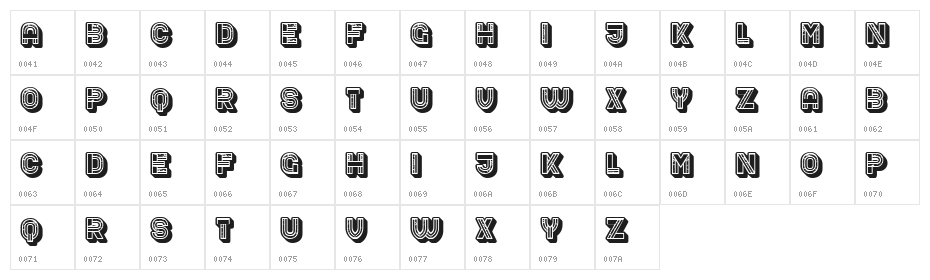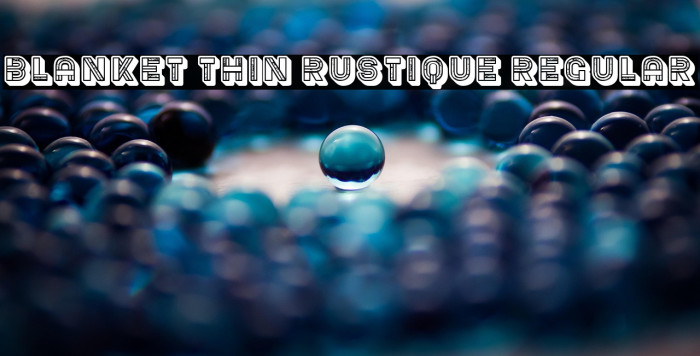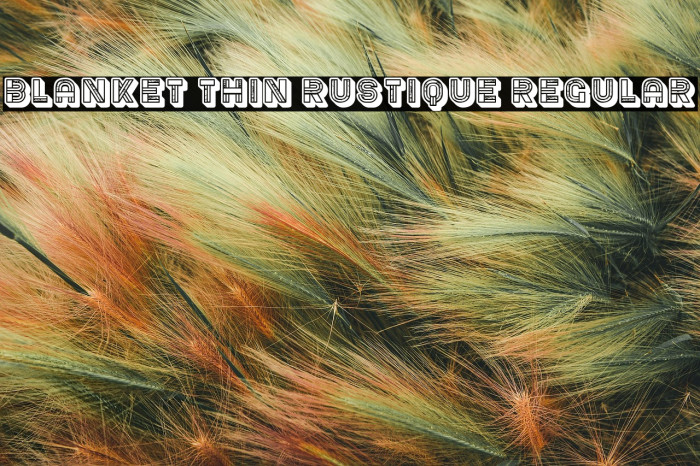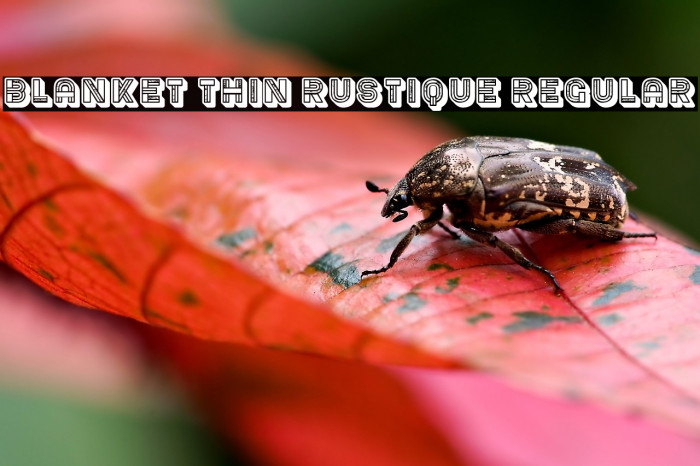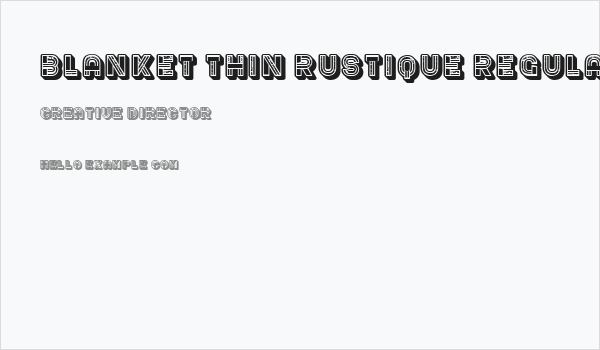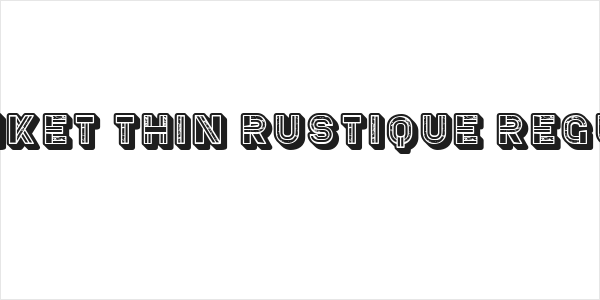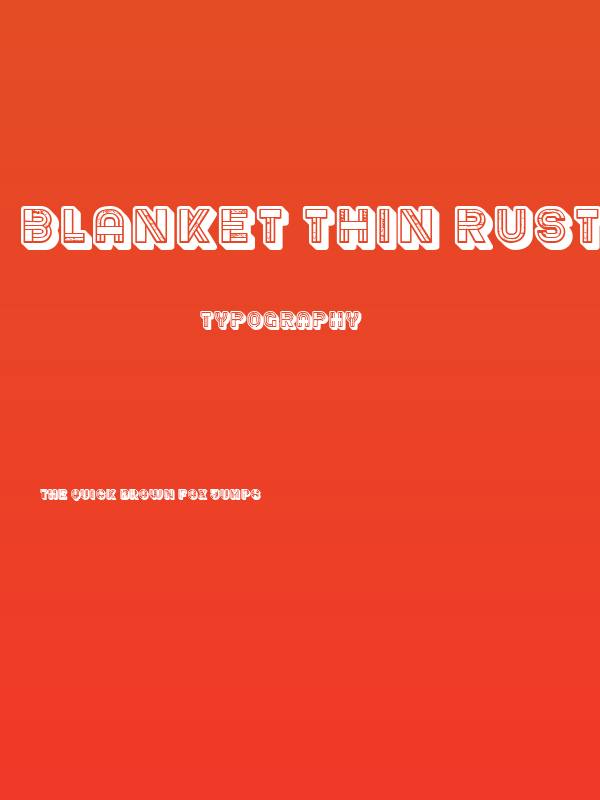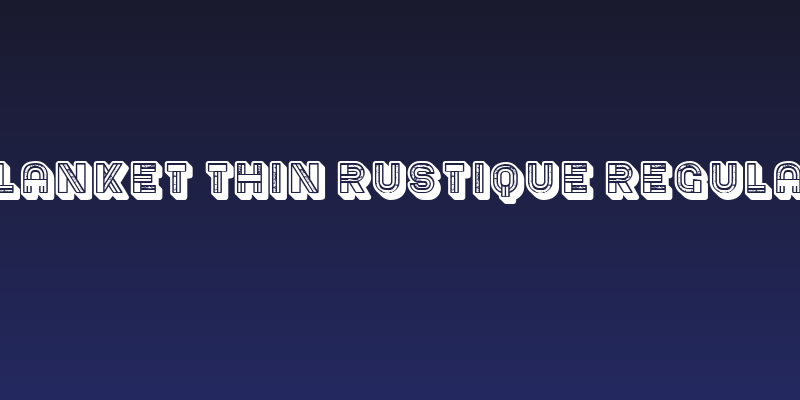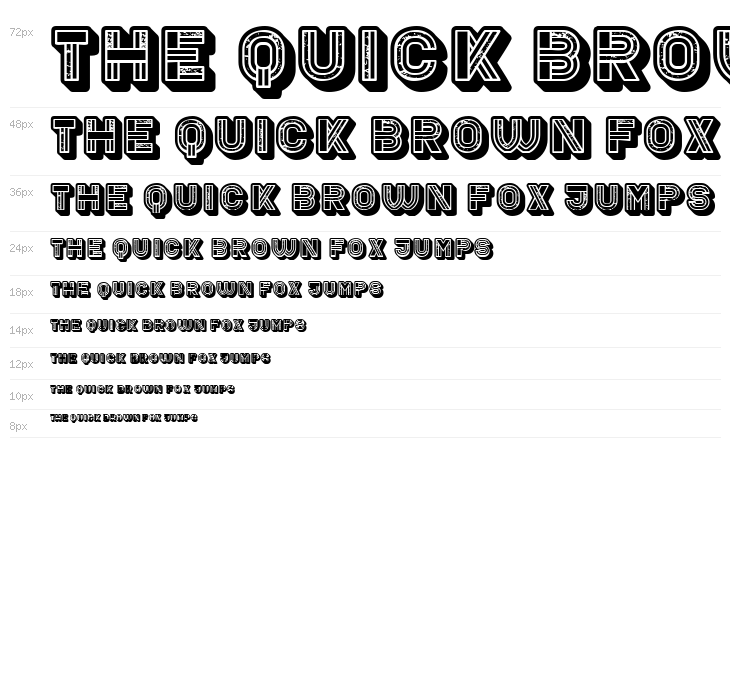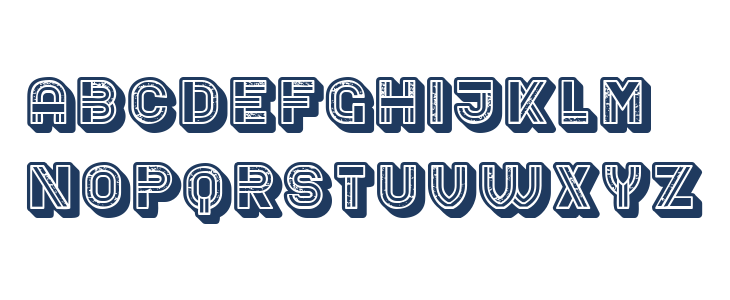
Blanket Thin Rustique Regular Font
Blanket Thin Rustique Regular Description
This font features a bold, decorative style with a three-dimensional effect. Each letter is outlined with a thick black shadow, giving it a striking appearance. The interior of the letters is filled with intricate line patterns, adding a textured, rustic feel. The uppercase letters are uniform in height and width, creating a cohesive look. This font is highly stylized, making it ideal for attention-grabbing designs. The overall aesthetic is both modern and vintage, combining contemporary design elements with a classic, retro vibe.
| Overall Style | Modern, Vintage |
| Proposed Projects | Ideal for posters, logos, headlines, and any project requiring a bold, eye-catching typeface. |